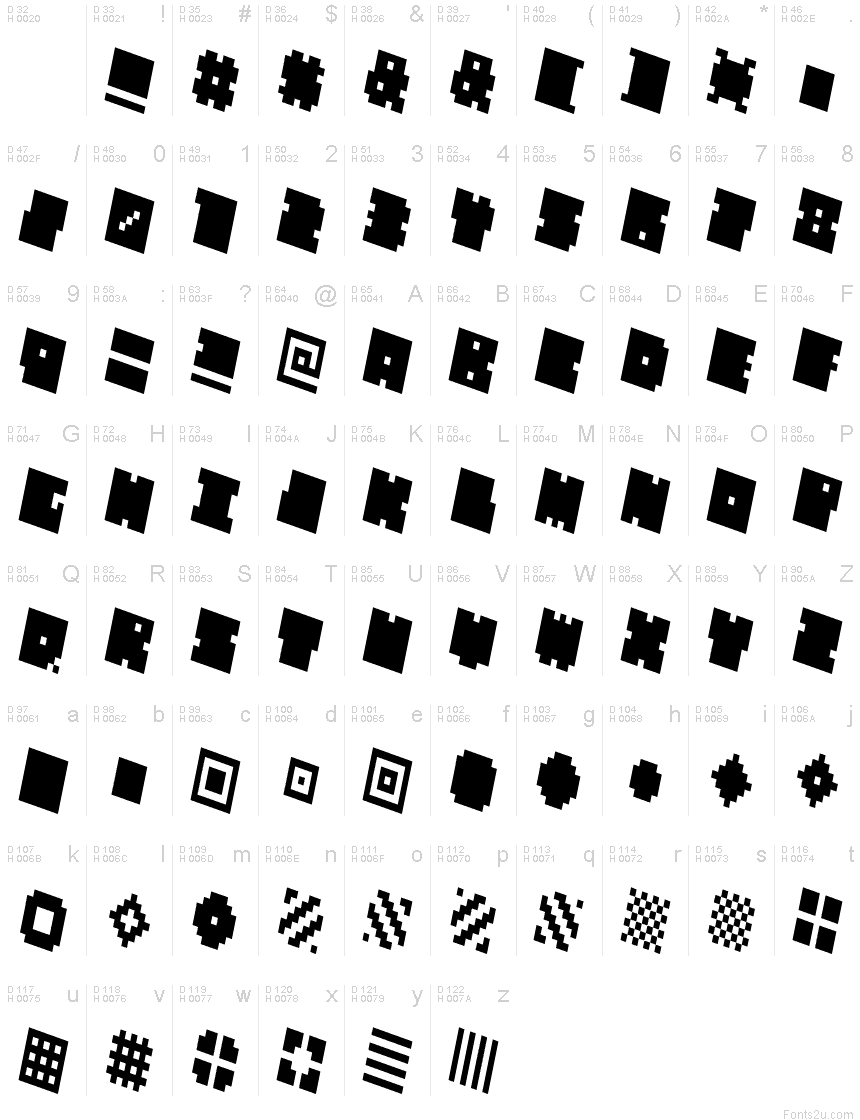
QUBE THIN ITALIC by Dan Redding of B/W Fontworks is a free distorted techno display font built from massive slanted blocks. Its uneven outer edges and small square cutouts make the letters resemble damaged machine parts, with a hard arcade-era attitude that feels deliberately rough and off balance.
It can turn lettering into a compact mechanical emblem for game title screens and electronic music posters. The shapes are blunt and immediate. Streetwear branding and science-fiction packaging also suit its industrial look, where the recurring chips, notches, and punched openings can echo circuit panels, pixel graphics, or heavily battered metal surfaces.